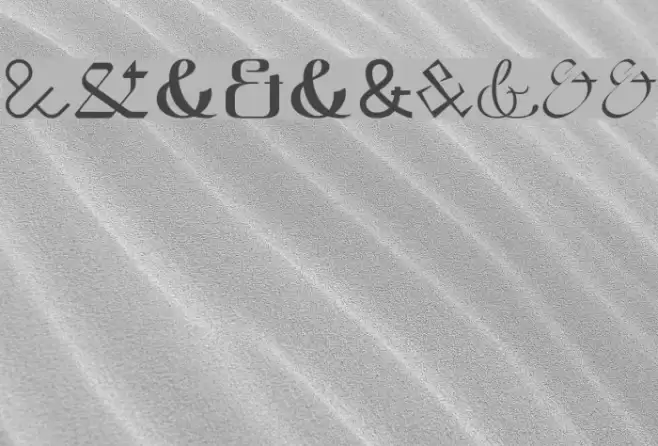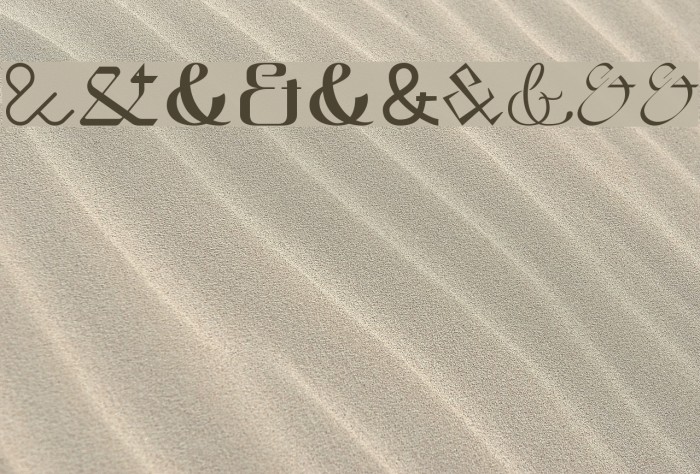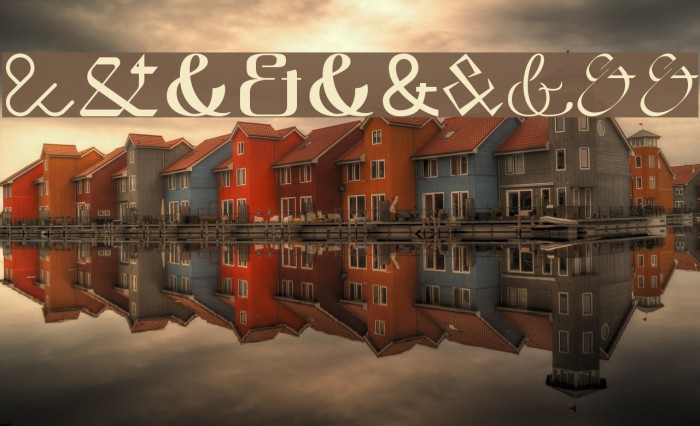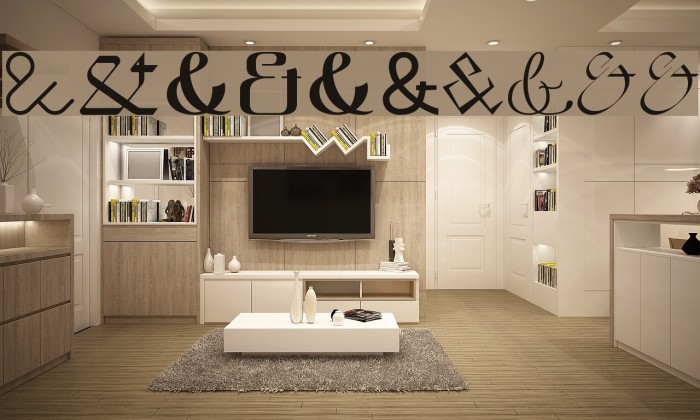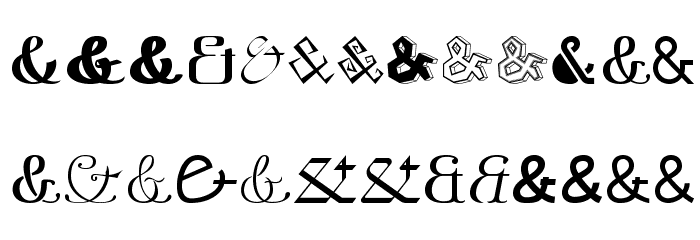
Etadayfree Font
Etadayfree Description
This collection showcases a diverse array of ampersand symbols, each with its own unique flair and style. The designs range from elegant and flowing to bold and geometric, offering a wide spectrum of artistic interpretations. Some ampersands feature intricate loops and curves, reminiscent of calligraphic styles, while others are more minimalistic with clean lines and sharp angles. The variety in stroke thickness and embellishments provides a rich visual experience, making these symbols suitable for various design contexts. The set includes both high-contrast and low-contrast options, catering to different aesthetic preferences. Overall, this collection is a testament to the versatility and creativity that can be expressed through a single character.
A diverse collection of ampersand symbols ranging from elegant to bold styles from Uncategorized fonts.
- Proposed Projects: Ideal for branding, logo design, editorial layouts, and decorative projects where a unique ampersand is needed.
- Character Spacing: Varies
- Use Case: Logos, Decorative elements